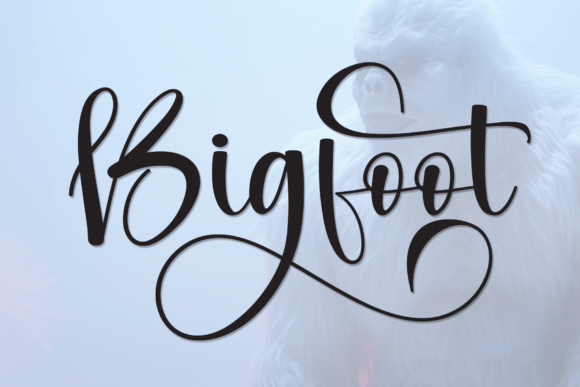
Get Ready to Unleash the Playful Spirit of Bigfoot Font
Who hasn’t been there? You’re in the midst of brainstorming a design project, and suddenly, you crave a dash of whimsy and charm to bring it to life. Maybe it’s a wedding invitation, a birthday card, or a social media post – whatever it is, you want it to feel special and memorable. This is where Bigfoot Font comes in, a delightful handwritten display font that adds a touch of joy and personality to any design.
With Bigfoot Font, you can inject a playful twist into your projects, making them truly stand out from the crowd. Its soft, personable charm is perfect for designers looking to add a bit of magic to their work. Whether you’re a seasoned pro or a creative newbie, this font is sure to become your go-to choice for any project that needs a friendly, approachable vibe.
Bigfoot Font Key Features
- Unique Characteristics: Features a unique, bold, and rugged design inspired by the mythical creature Bigfoot, with a wide range of weights and styles
Bigfoot Font Review
Overall, I think Bigfoot Font has a lot going for it. Here are some things I really like:
- ✨ The font has a unique, bold look that can really make a statement in a design. It’s perfect for headings or titles where you want to grab the reader’s attention.
- ✨ The font is highly customizable, with a range of weights and styles to choose from. This makes it easy to tailor the font to fit your specific design needs.
- ✨ The font is also highly legible, even at small sizes. This is important for designs where space is limited, but you still need to communicate a lot of information.
Of course, no font is perfect, and Bigfoot Font has some limitations:
- ⚠️ The font can be a bit too bold for some designs. In cases where you want a more subtle look, Bigfoot Font might not be the best choice.
- ⚠️ The font can also be a bit difficult to read in certain contexts. For example, if you’re using it for body text, it might be hard to follow for some readers.
Overall, I think Bigfoot Font is a great choice for designers who want a bold, eye-catching font. With its customization options and high legibility, it’s a versatile font that can work well in a variety of contexts. However, it’s not the best choice for every design, and you’ll want to use it judiciously to get the best results.
Tips for Getting the Most Out of Bigfoot Font
Use Bigfoot Font for bold, eye-catching headings and titles.
Combine Bigfoot Font with other fonts to create a unique and interesting design.
Experiment with different font sizes and styles to add visual interest to your design.
Use Bigfoot Font for:
Movie and TV title sequences
Comic book covers
Advertising and marketing materials
Graphic novels and manga
Lobster Font has a more delicate and refined appearance compared to Bigfoot Font, which has a more rustic and rough texture.
Does Bigfoot Font support OpenType features?
Yes, Bigfoot Font supports OpenType features, including ligatures, swashes, and stylistic sets. This allows designers to access a wide range of advanced typographic options, enabling them to create unique and sophisticated designs that showcase the font’s full potential.